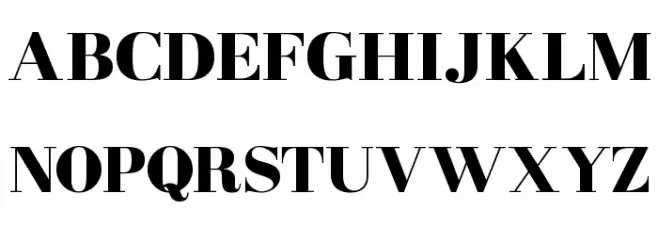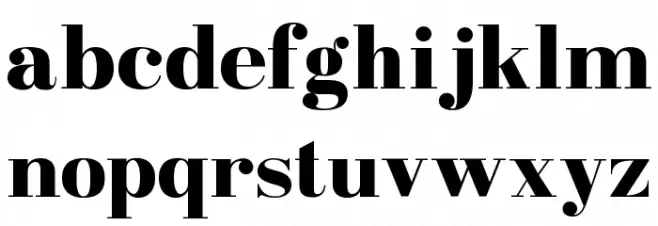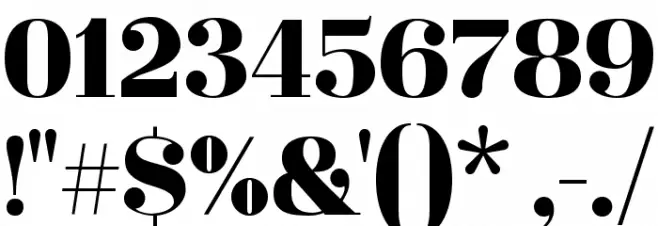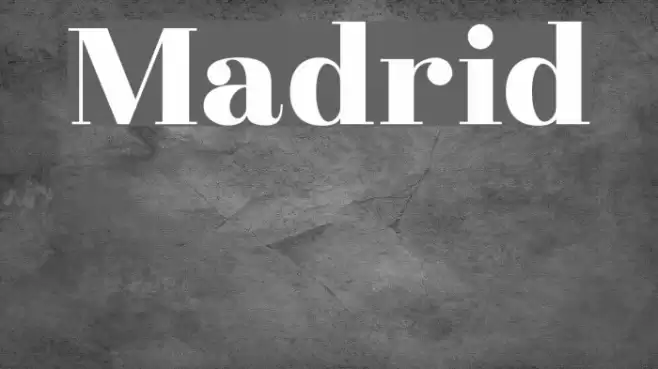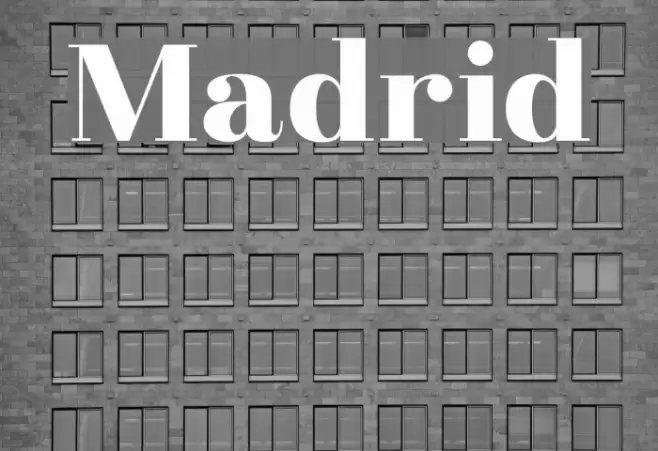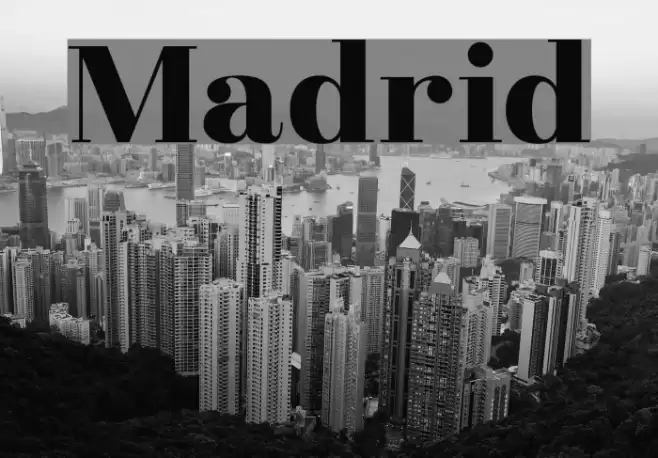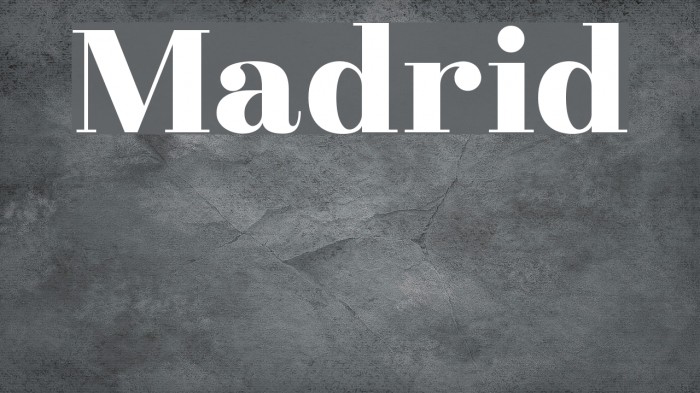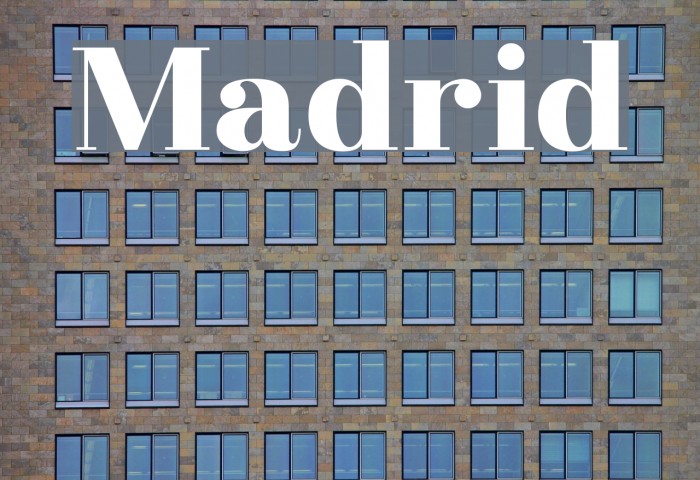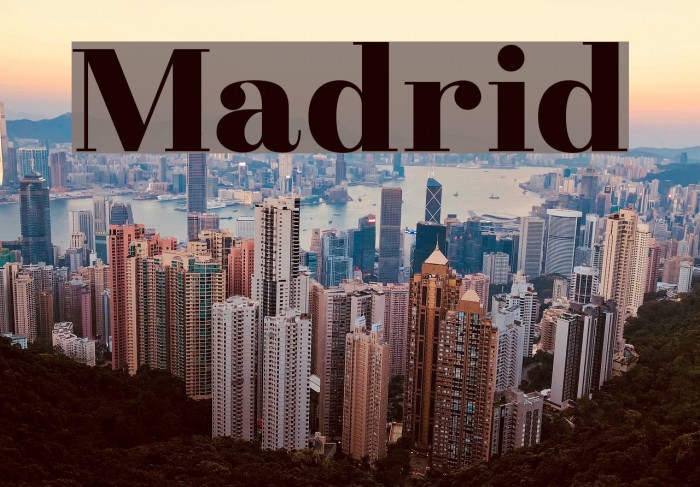
Madrid
This font exhibits a classic serif style with a strong presence and elegant curves. The uppercase letters are bold and commanding, while the lowercase letters maintain a consistent weight and balance. The numerals are distinct and easily readable, making them suitable for various applications. The special characters are well-integrated, adding to the font's versatility. The overall design is sophisticated, with a high contrast between thick and thin strokes, giving it a timeless and authoritative appearance.
A classic serif font with high contrast and elegant curves.
- Proposed Projects: Ideal for editorial design, book covers, luxury branding, and formal invitations.
- Category: Serif
- Contrast: High
- Overall Style: Classic